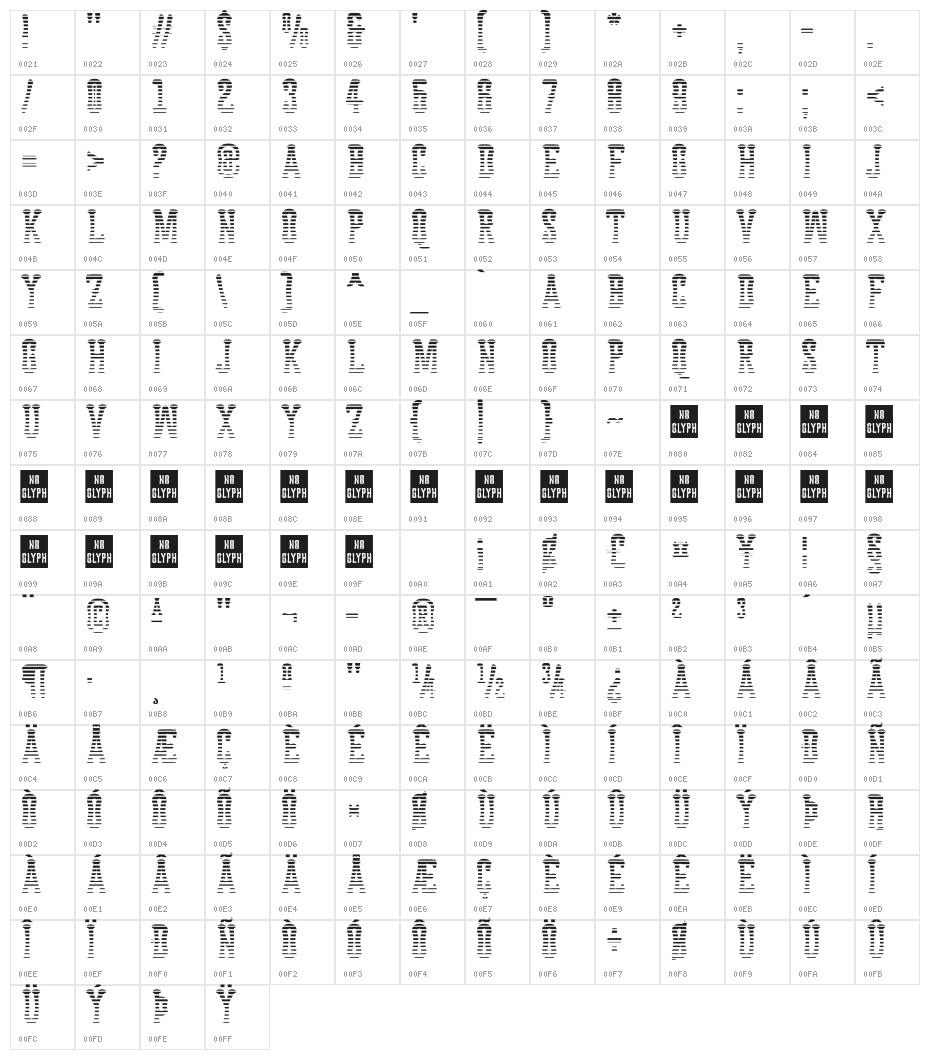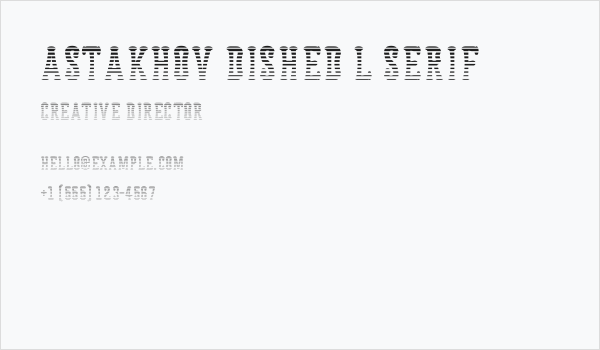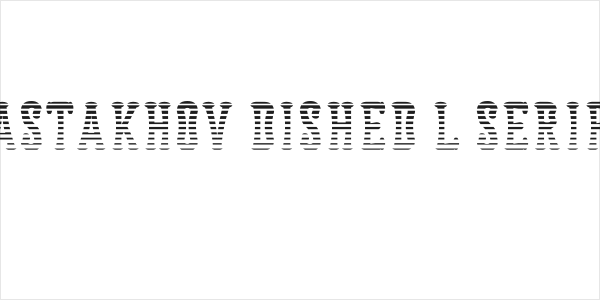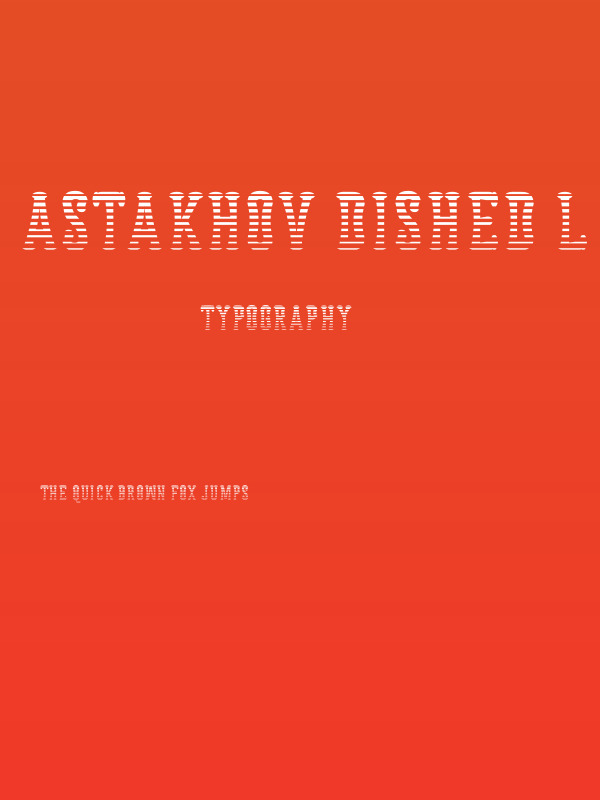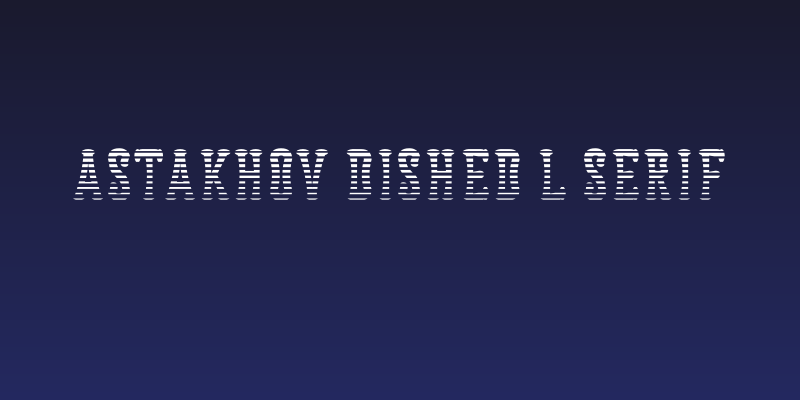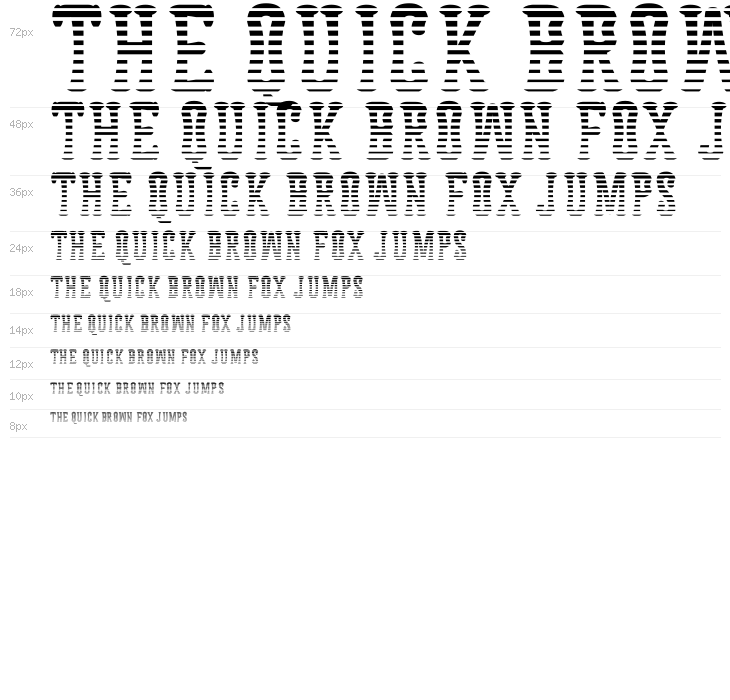
Astakhov Dished L Serif Font
Astakhov Dished L Serif Description
This font features a unique design with horizontal stripes cutting through each character, creating a visually striking effect. The letters are bold and have a modern, industrial feel, with a serif style that adds a touch of classic elegance. The uppercase and lowercase letters maintain a consistent style, while the numbers and special characters follow the same striped pattern, ensuring uniformity across all elements. The font's distinct appearance makes it ideal for projects that require a bold statement or a futuristic look.
| Proposed Projects | Ideal for branding, posters, and headlines that require a bold, eye-catching design. |